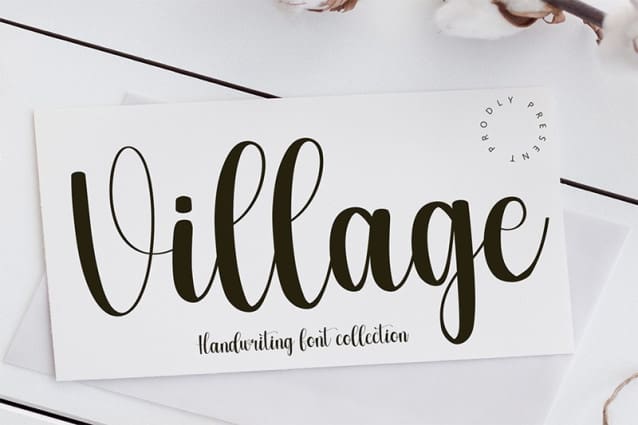
Village Script Font
Village Script Font, This font retains a classy calligraphic influence while feeling contemporary and fresh. This versatility will attract a wide range of creative ideas, from letterheads and titles to stationery.